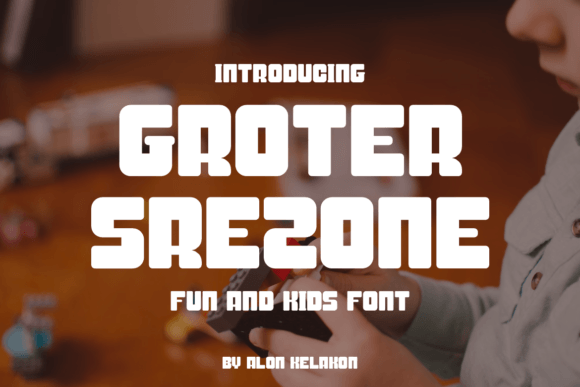
Introducing the Groter Srezone Font: An Exhilarating Sans Serif Masterpiece
In a world where words roar like thunder and visuals ignite passion, Groter Srezone Font emerges as the ultimate champion of expression. This remarkable sans serif font is not merely a collection of letters; it's a gateway to a world of boundless creativity and unrestrained storytelling. With Groter Srezone, your designs will transform into adrenaline-fueled masterpieces that leave an indelible mark on your audience.
Unleash the Power of Groter Srezone:
- Bold and Assertive: Groter Srezone exudes confidence and strength. Its thick strokes and sharp angles command attention, making it perfect for headlines, titles, and logos that demand to be seen and heard.
- A Timeless Classic: While rooted in the world of motor sports, Groter Srezone transcends the boundaries of genre. Its timeless design ensures that it will remain a beloved choice for years to come, adapting seamlessly to any project that demands a touch of boldness.
- Endless Possibilities: Whether you're crafting sleek posters, eye-catching social media graphics, or dynamic website designs, Groter Srezone is your trusty companion. Its versatility knows no limits, allowing you to create designs that resonate with your audience and leave a lasting impression.
Groter Srezone: The Perfect Addition to Your Font Arsenal
Elevate your designs to new heights with Groter Srezone. Its carefully crafted characters and dynamic energy will inject life into your creative projects, leaving your audience breathless. Don't miss this opportunity to add a champion to your font collection. Embrace the power of Groter Srezone today and unlock a world of boundless creativity.